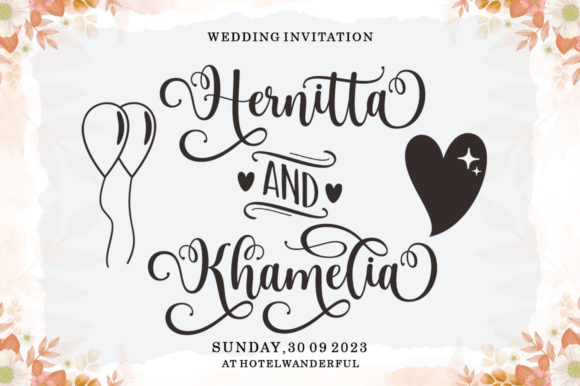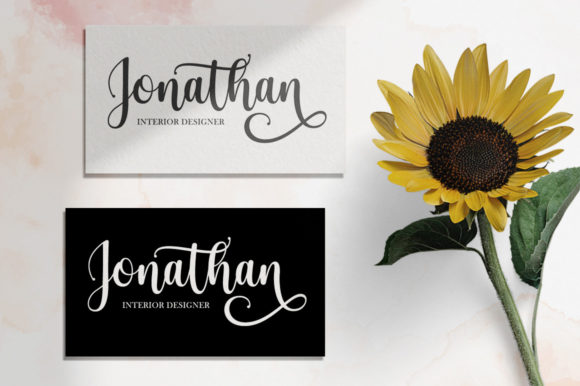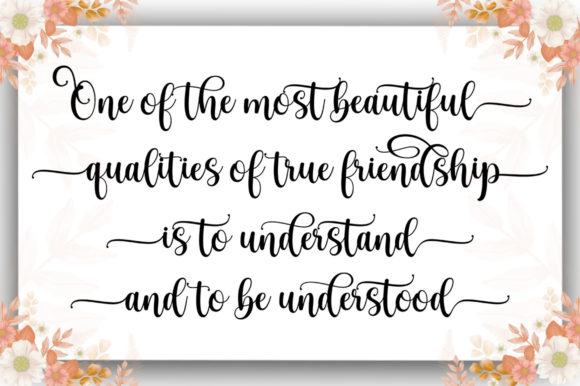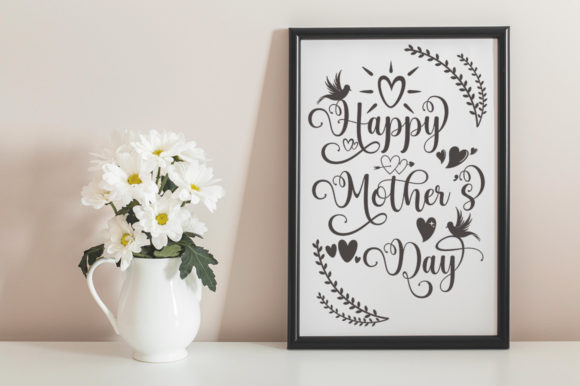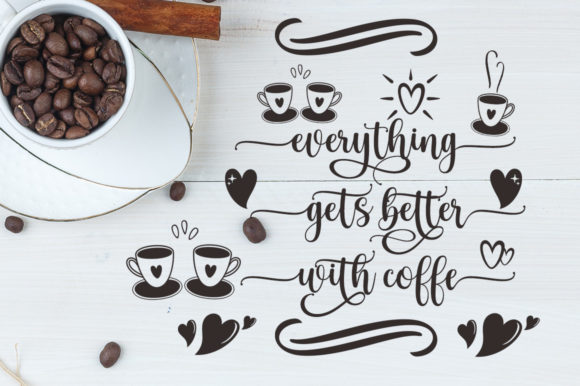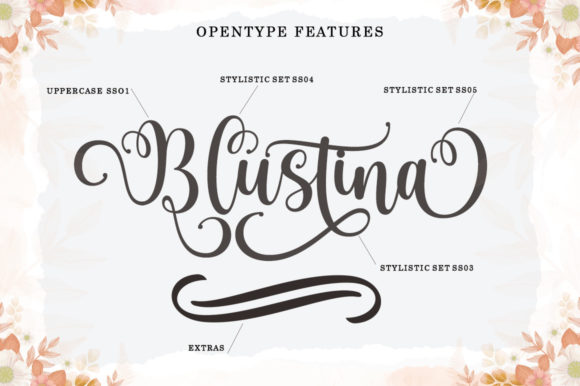
Introducing Blustina Script Font: Elevate Your Designs with Luxury and Elegance
Are you looking for a font that can add a touch of luxury and sophistication to your design projects? Look no further than Blustina Script Font. This dazzling script font is designed to make your designs stand out from the crowd, and with its PUA encoding, you can easily access a wide range of glyphs and ligatures to take your creations to the next level.
What is Blustina Script Font?
Blustina Script Font is a beautifully crafted script font that exudes elegance and luxury. Its flowing lines and intricate details make it perfect for designs that require a touch of sophistication. Whether you’re working on a branding project, a wedding invitation, or a packaging design, Blustina Script Font is sure to impress.
Key Features of Blustina Script Font
- PUA Encoding: Blustina Script Font is PUA encoded, which means you can access all of the amazing glyphs and ligatures with ease. This makes it simple to customize your designs and add a personal touch.
- Luxury and Elegance: Blustina Script Font is designed to add a touch of luxury and sophistication to your designs. Its elegant lines and intricate details make it perfect for high-end branding and design projects.
- Versatility: Blustina Script Font can be used for a wide range of design projects, from wedding invitations and packaging design to branding and advertising.
Benefits of Using Blustina Script Font
So why choose Blustina Script Font for your design projects? Here are just a few benefits of using this amazing font:
- Adds a Touch of Luxury: Blustina Script Font is designed to add a touch of luxury and sophistication to your designs. Its elegant lines and intricate details make it perfect for high-end branding and design projects.
- Easy to Use: With PUA encoding, Blustina Script Font is easy to use and customize. You can access a wide range of glyphs and ligatures with ease, making it simple to create unique and personalized designs.
- Versatile: Blustina Script Font can be used for a wide range of design projects, from wedding invitations and packaging design to branding and advertising.
- High-Quality Design: Blustina Script Font is designed to high standards, ensuring that your designs look professional and polished.
Design Ideas Using Blustina Script Font
Blustina Script Font is versatile and can be used for a wide range of design projects. Here are a few ideas to get you started:
- Wedding Invitations: Blustina Script Font is perfect for wedding invitations, adding a touch of luxury and elegance to your designs.
- Packaging Design: Use Blustina Script Font to add a touch of sophistication to your packaging design.
- Branding: Blustina Script Font is perfect for high-end branding projects, adding a touch of luxury and elegance to your designs.
- Advertising: Use Blustina Script Font to create eye-catching advertising campaigns that stand out from the crowd.
| Font Name | Blustina Script Font |
| Author | Romie Creative |